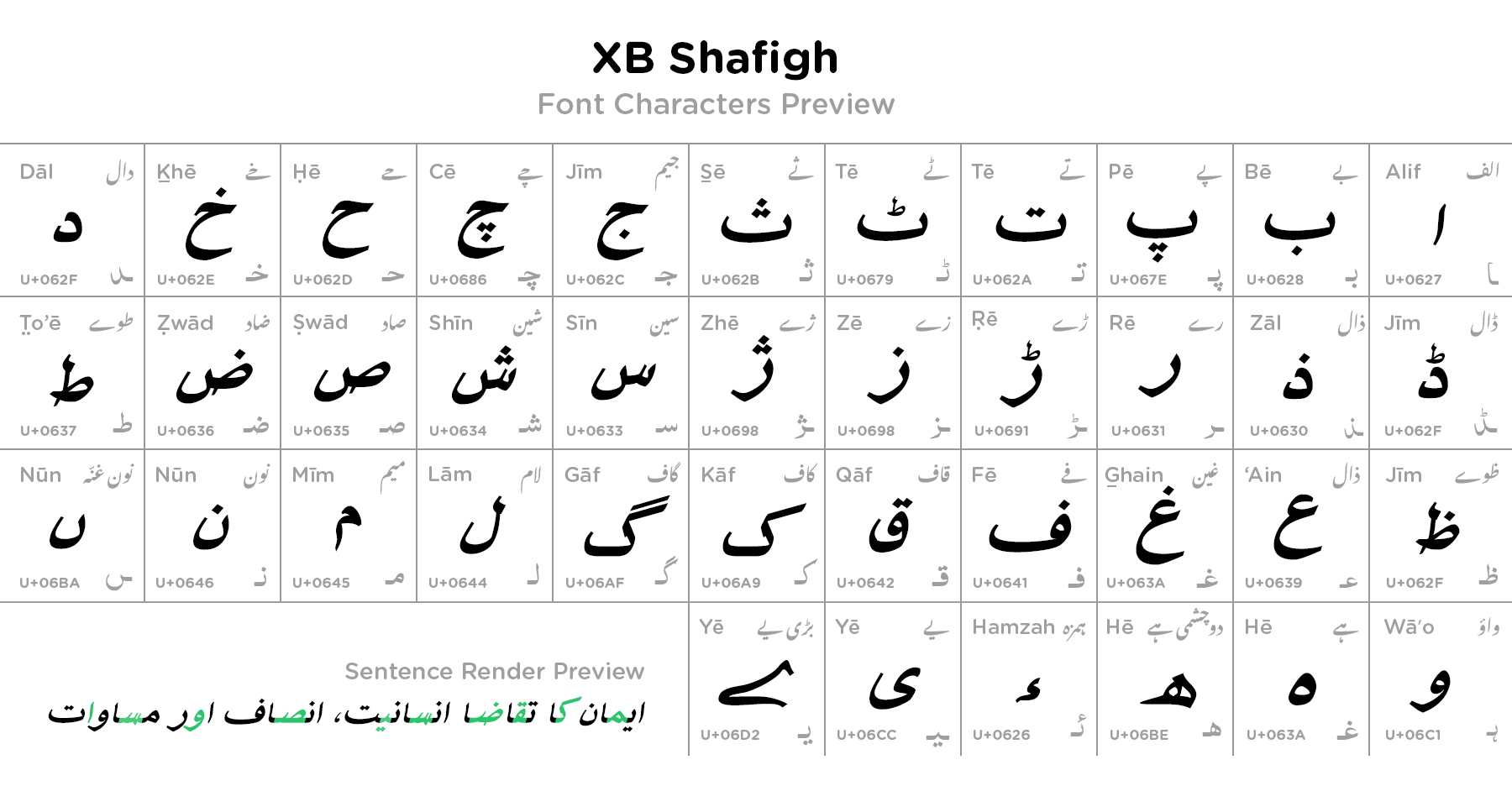
The XB Shafigh is a sharp and flowing Arabic font family based on the Nastaliq script, designed by Behnam and licensed in October 2017. Trademark of Irmug, XB Shafigh is released under the SIL Open Font License. This font was originally designed for Mac OS X font technology and has been totally rebuilt and expanded to support many different languages including Arabic, Persian, Uyghur, Urdu, Dari, Kurdish, Pashto, old Turkish (Ottoman), new Turkish (Roman)and Uzbek, using Microsoft Open Type (OT) technology for TrueType format and Apple Advanced Typography (AAT) technology. The font has a large character set of 1032 letters and special symbols with 915 glyphs and support with Arabic, Latin, and Greek. Moreover, it comes in 4 different styles, including: